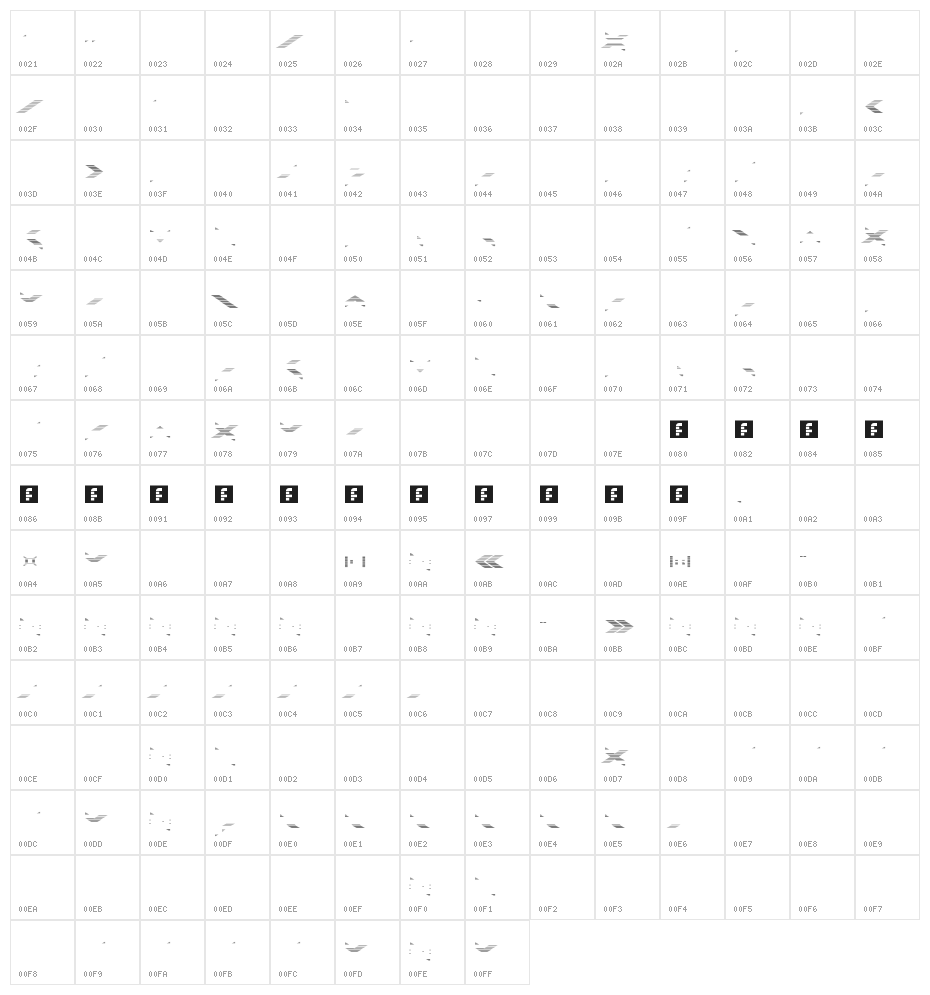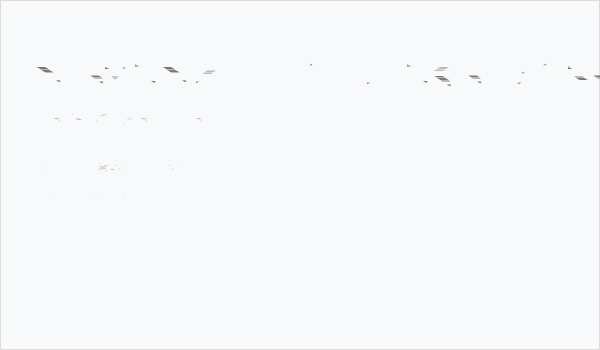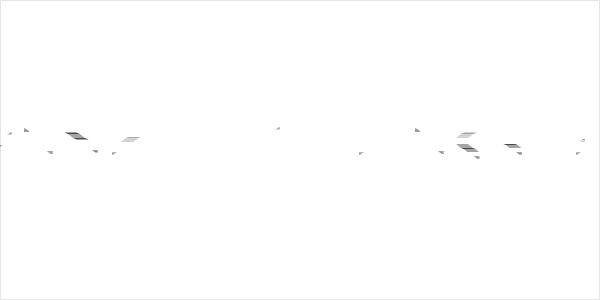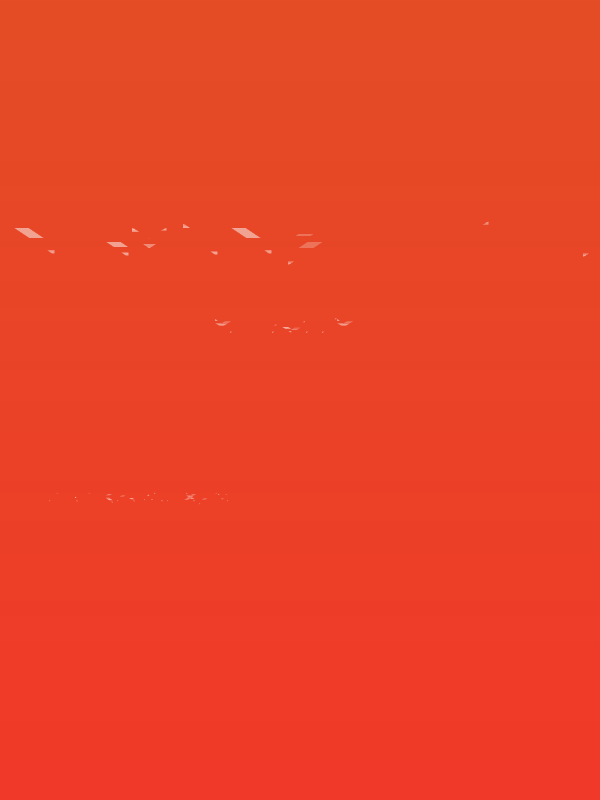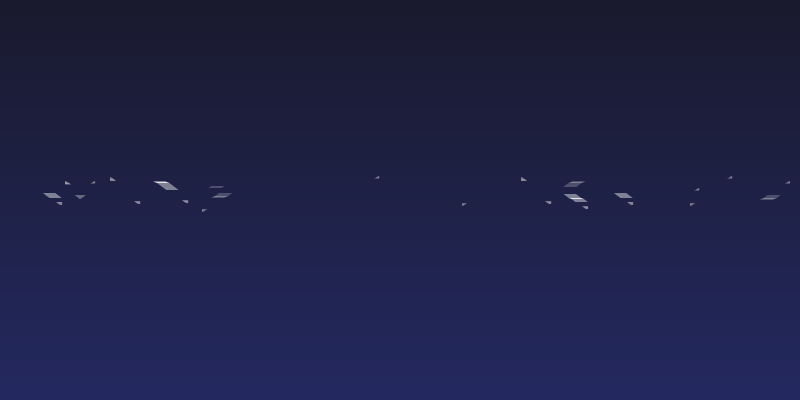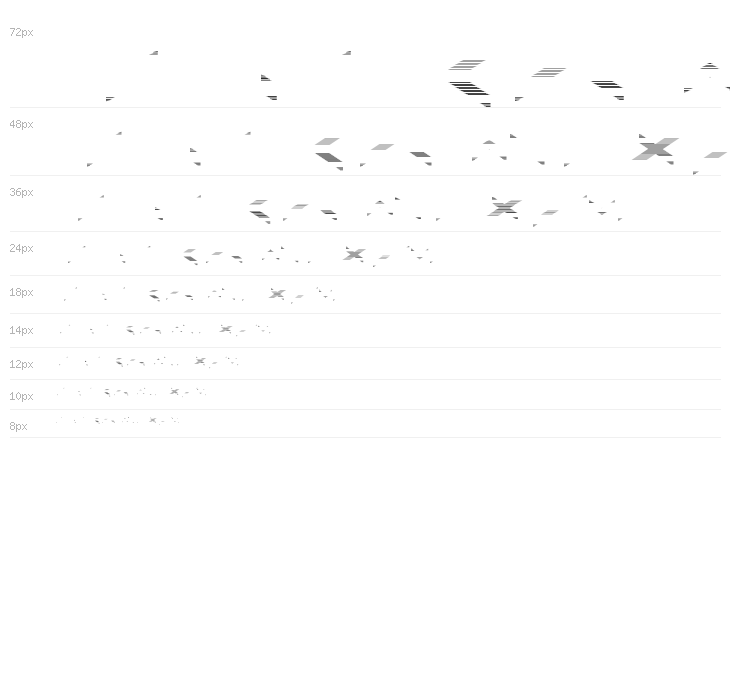
Vermin Vibes Out Of Ink Regular Font
Vermin Vibes Out Of Ink Regular Description
This font features a futuristic and edgy design, characterized by its use of horizontal lines to form each character. The letters are angular and sharp, giving a sense of motion and energy. The consistent use of parallel lines creates a unique texture, making it stand out as a display font. The uppercase and lowercase letters maintain a uniform style, with the lowercase slightly smaller but equally dynamic. Numbers and special characters follow the same design principles, ensuring a cohesive look across all glyphs. This font is ideal for projects that require a modern and bold statement.
| Proposed Projects | Ideal for sci-fi themed designs, video game titles, posters, and branding that requires a modern and bold aesthetic. |